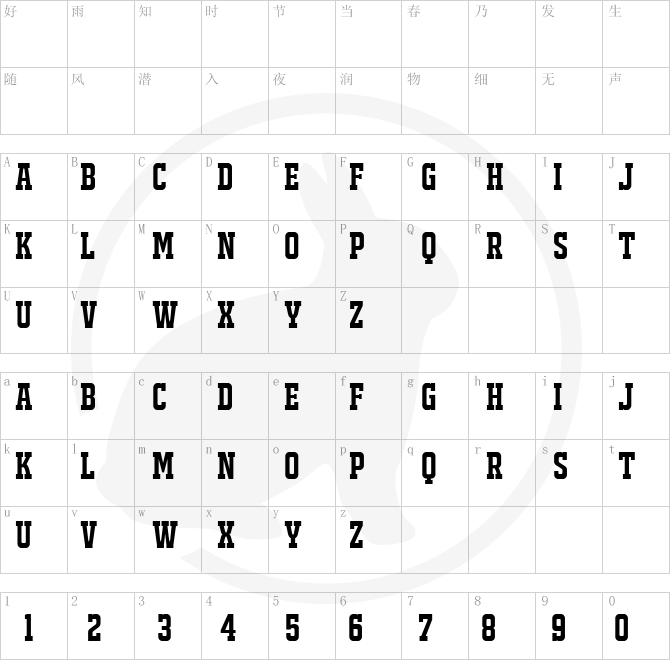
- Font Name:JACKPORT REGULAR NCV
JACKPORT-REGULAR-NCV.ttf is a very beautiful artistic font, JACKPORT-REGULAR-NCV.ttf is widely used in the design and printing of various books and pictures,JACKPORT-REGULAR-NCV.ttf has a strong visual impact,JACKPORT-REGULAR-NCV.ttf is a commonly used font in newspapers, magazines and books, and is used in posters, e-commerce Poster design, store design, logo design, font design and other fields.JACKPORT-REGULAR-NCV.